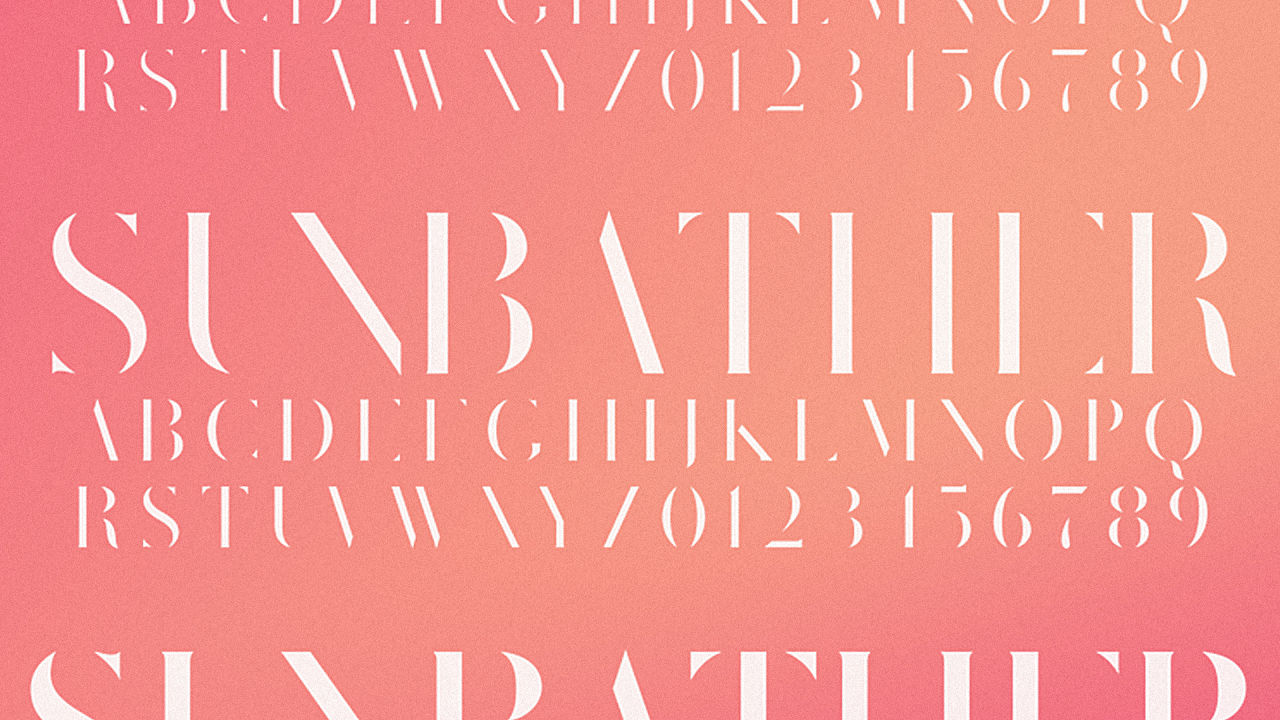
The “Sunbather” font references these moments when bright mild washes out your vision.
San Francisco black metal staff Deafheaven launched one of the significantly lauded albums of last 12 months with their most contemporary album, Sunbather. The album’s duvet, that includes a pinkish to orange gradient with the title printed in white over it, became its personal iconic signature for the band and their work. Now, Deafheaven’s label, All Black Recording company, is selling the Sunbather font, designed through Nick Steinhardt for the album duvet.
in line with the label, Sunbather—which is in keeping with historic type experiments through Jan Tschicold, is “a stenciled flare-serif display face inspired with the aid of vibrant mild and dissipating legibility” which “questions the mind to connect what the eyes cannot see when the thinnest strokes of a didone font evaporate.” Sunbather is available in three weights—guide (which was once used for the album duvet), bold, and Black—and is to be had as a free obtain with the purchase of alternative merch, or available as a separate suite for $30. [h/t Pitchfork]